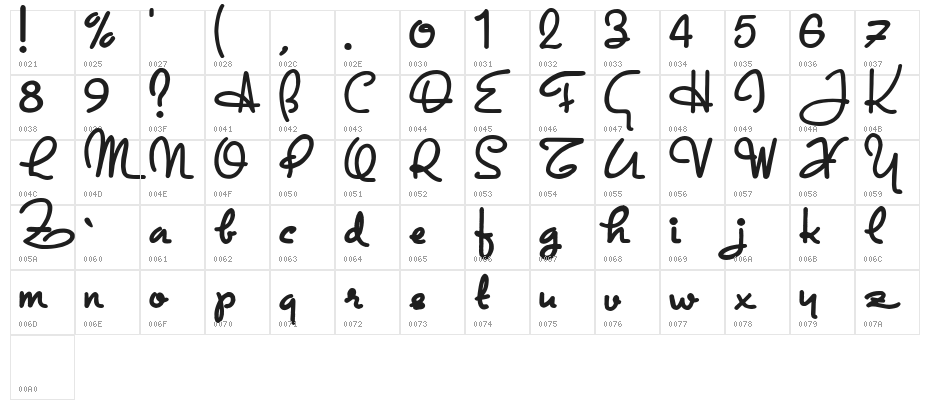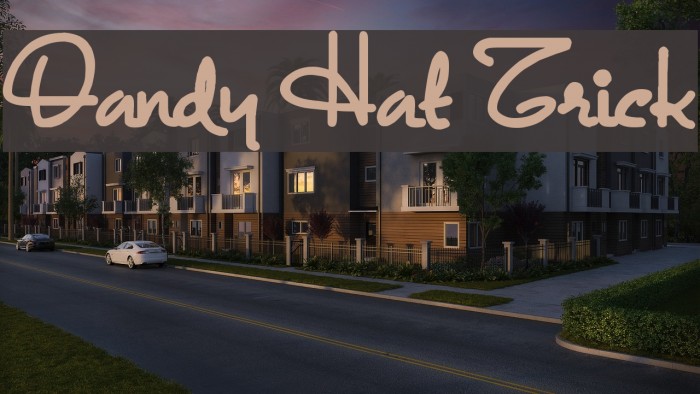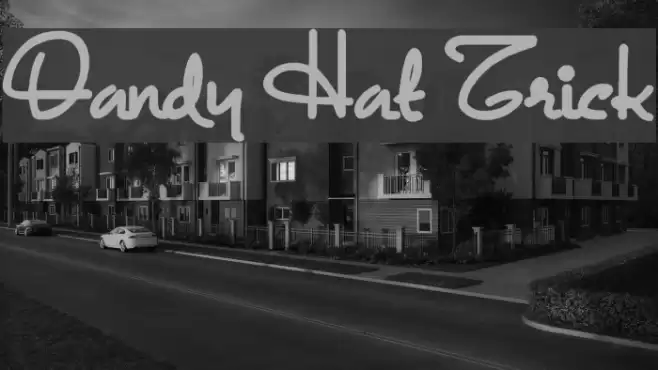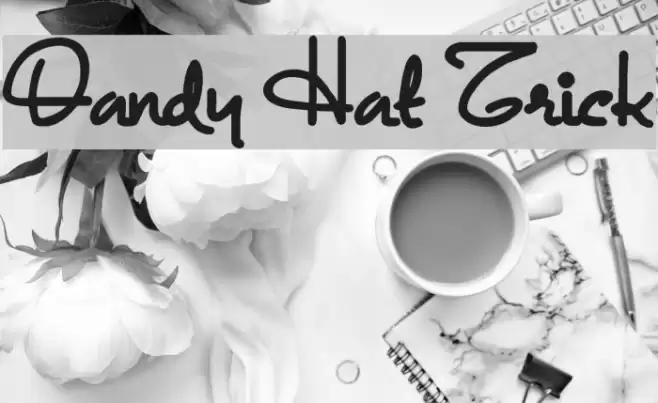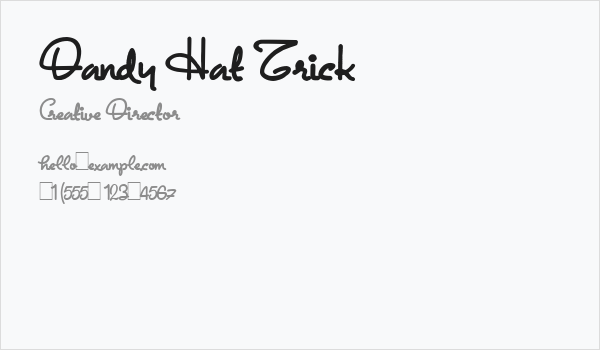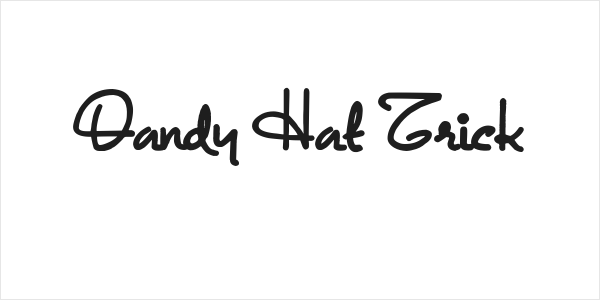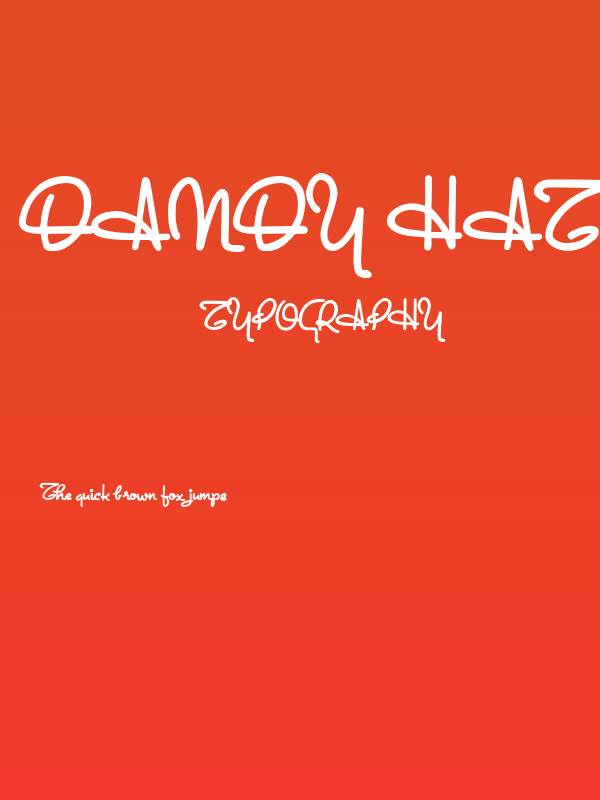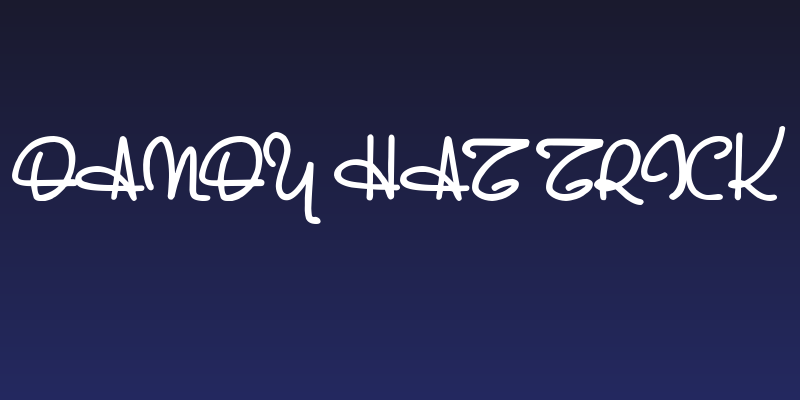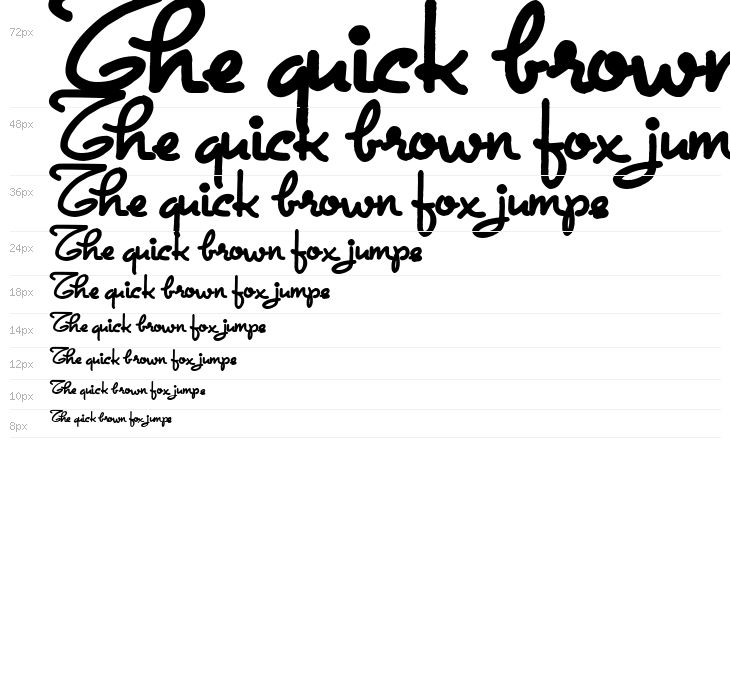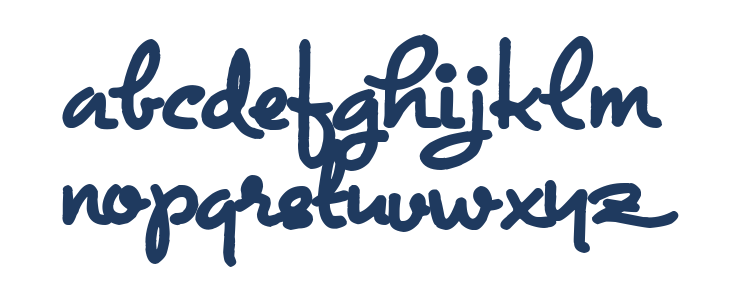
Dandy Hat Trick Font
Dandy Hat Trick Description
This font exudes a playful and energetic vibe with its handwritten style, characterized by flowing, interconnected letters. The uppercase letters are bold and dynamic, featuring loops and curves that give a sense of movement. The lowercase letters maintain a consistent style, with rounded edges and a slightly slanted orientation, enhancing the casual and approachable feel. Numbers and special characters follow the same design principles, ensuring uniformity across all elements. The overall appearance is lively and informal, making it suitable for creative and fun projects.
| Proposed Projects | Ideal for greeting cards, children's books, playful branding, and social media graphics. |